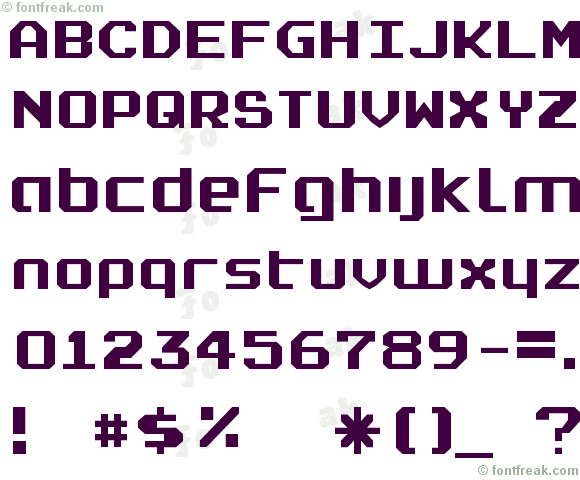
Realpolitik
About Realpolitik
The Realpolitik font by Iconian Fonts is a striking display typeface that embodies a bold, modern aesthetic. This sans-serif font features a geometric design characterized by its sharp angles and distinctive letterforms. The stroke weight is consistent throughout, creating a uniform appearance that lends itself well to various applications. The spacing between letters is generous, enhancing readability while maintaining a compact and impactful visual presence.
Realpolitik is particularly well-suited for use in eye-catching contexts such as movie posters, advertising campaigns, and branding projects. Its unique style can elevate restaurant menus, giving them a contemporary flair that captures attention. Additionally, this font is ideal for graphic designers looking to create striking headlines or logos that demand immediate interest. Small business owners seeking to establish a memorable brand identity will also find Realpolitik to be a valuable asset. Content creators can leverage this font in digital media, making presentations or social media posts visually appealing and engaging.
The target audience for the Realpolitik font includes graphic designers, small business owners, and content creators who appreciate modern typography that conveys strength and confidence. This freeware font, available for easy download, allows users to incorporate a unique visual element into their projects without any financial burden.
What sets the Realpolitik font apart is its ability to blend simplicity with boldness, making it a versatile choice for a variety of design needs. Its geometric forms and clean lines ensure that it stands out, making any text appear more dynamic. For those in search of a font that combines modern aesthetics with functional design, the Realpolitik font free download is a perfect choice for elevating any creative project.